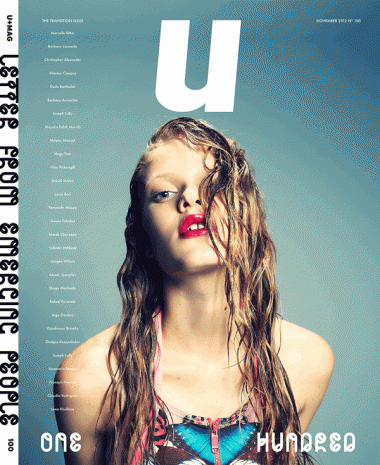
AT Degoratix
by kassymkulov
I just love making these kind of fonts. It was fun. Thanks & Enjoy!
What a friendly, cuddly, font - I love that 'g'. 10/10
Thanks, p2pnut! It's that "g" that got me started on this font.
Congratulations! FontStruct Staff have deemed your FontStruction worthy of special mention. “Degoratix” is now a Top Pick.
There's happiness in this one! 10/10
Seeing your works like Degoratix, Dalmat and Barney Stencil, i understand better why you like my work : we both, with our distinct esthetic ways, are following the traces of the "lost paradise" of childhood in the depth of our grown-ups envelope !
This font was used for the 100th issue of U+MAG
magazine. Hooray!
Clap Clap. Are you involved in this mag or did they find your font just coming to Fontstruct ?
No, I'm not involved with it, it's in Brazil, it seems they keep track of Fontstruct. They contacted me asking permission to use it on their next issue, which I was happy to give :)